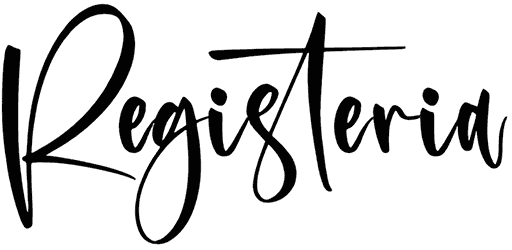
Registeria Font
Enjoy a cool and modern show with a catchy item that can be matched with various projects. This handwritten font, named Registeria, has a natural curving lettered face and can bring an elegant mood to your words. With a full cover of characters, this script font would be a perfect choice for many designs, from postcards to logos.